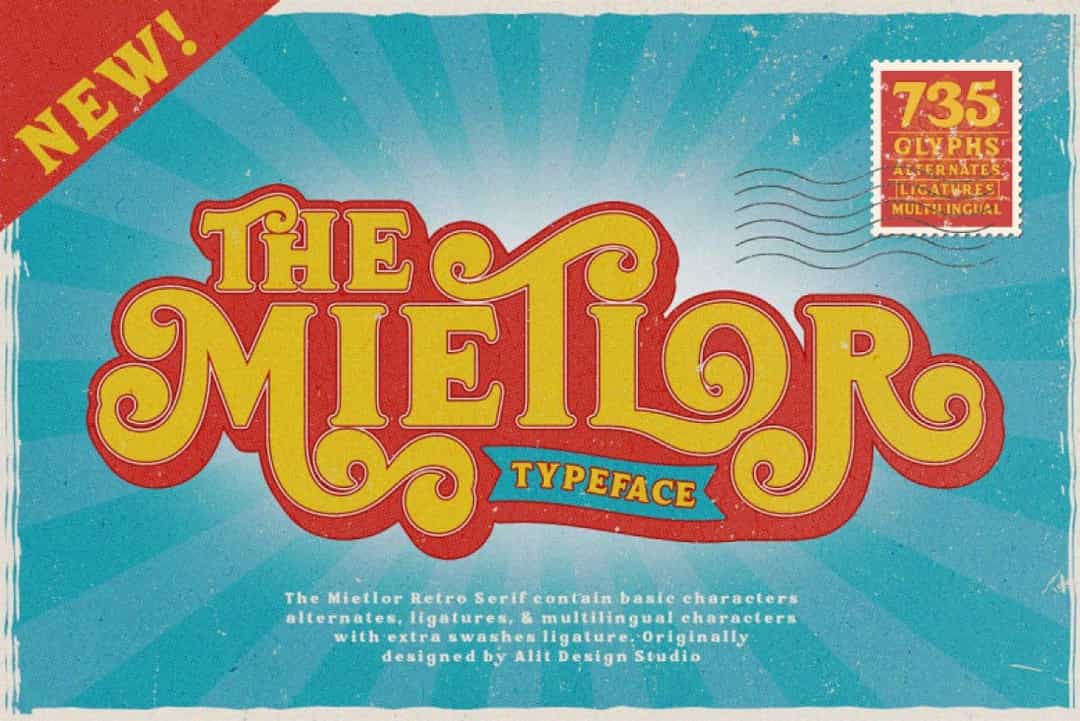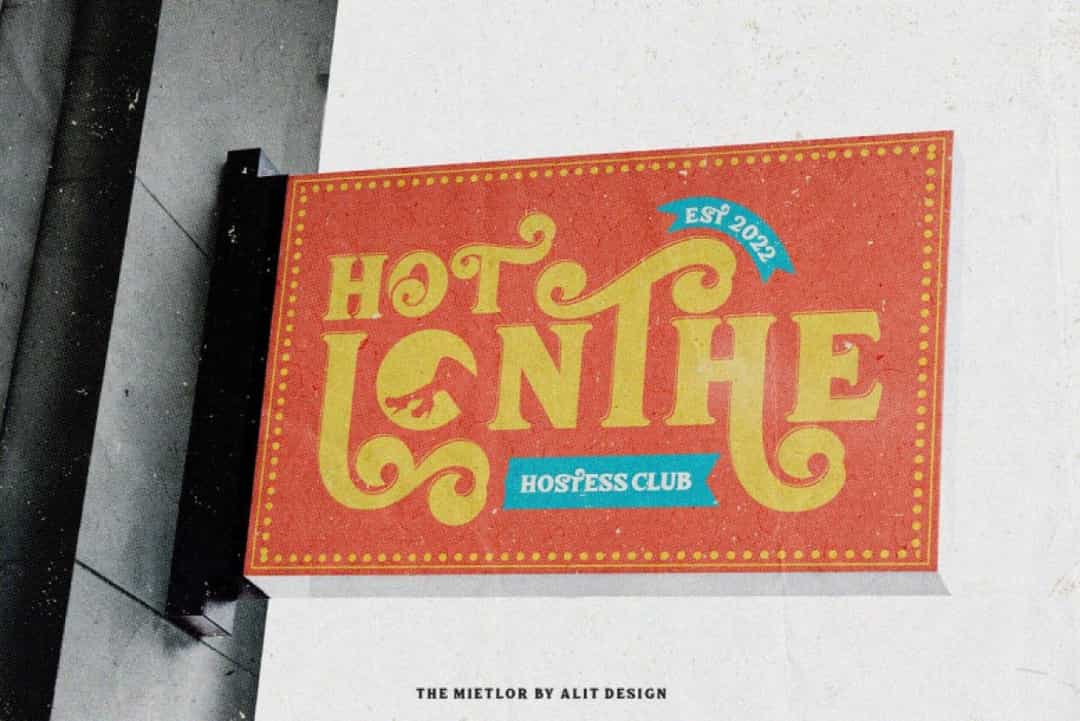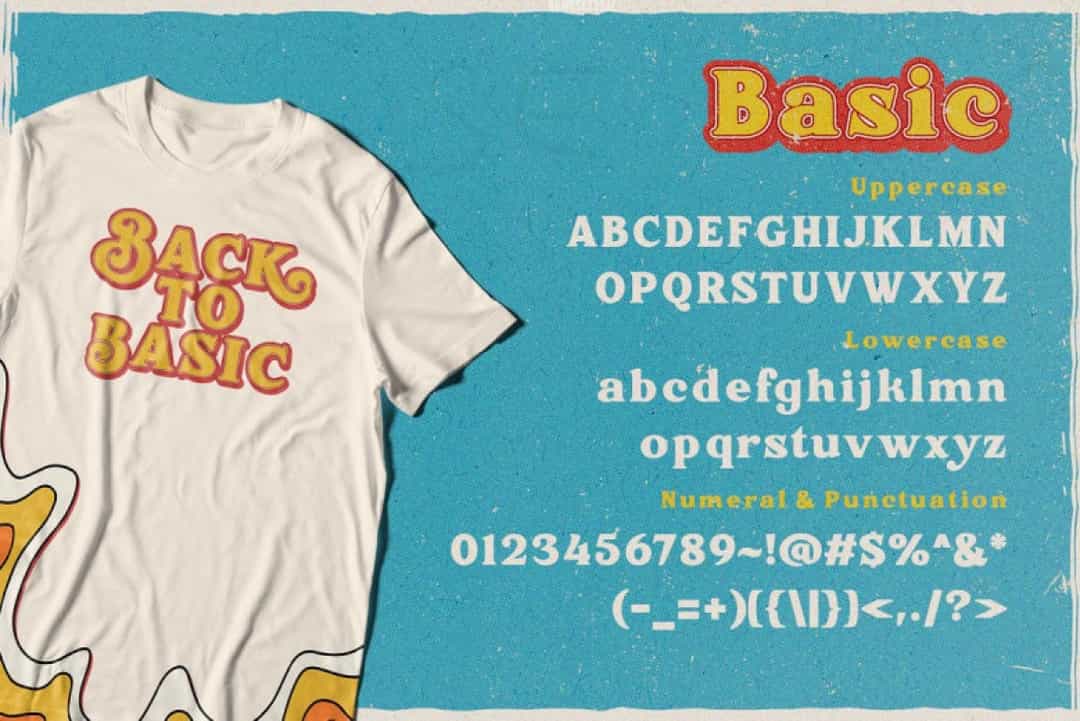
Mietlor Typeface draws inspiration from fashionable designs of the 80s and 90s. Font styles such as “The Mietlor Typeface” were considered strong and contemporary looks of these eras; featuring many characters and swashes for easy retro designs.